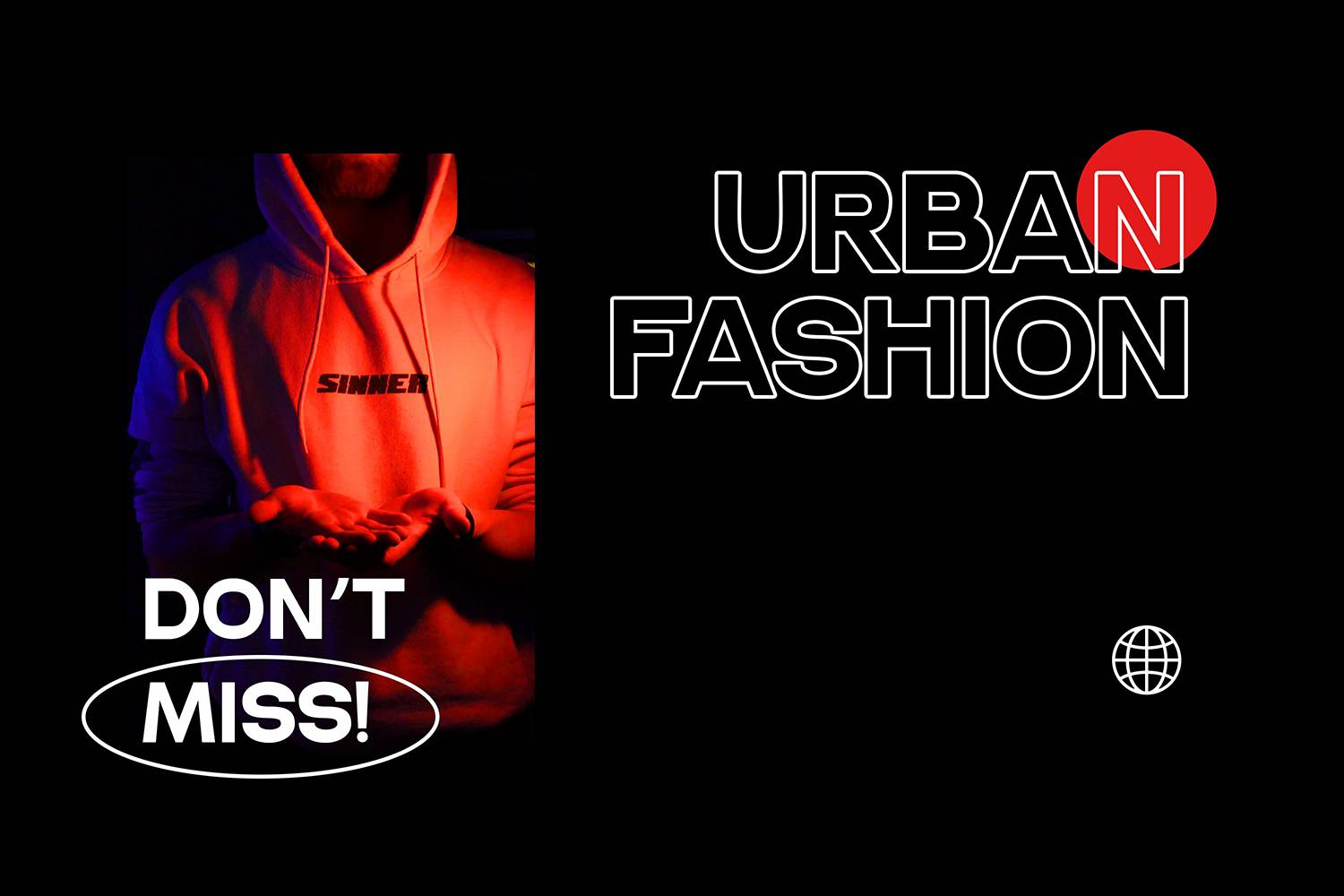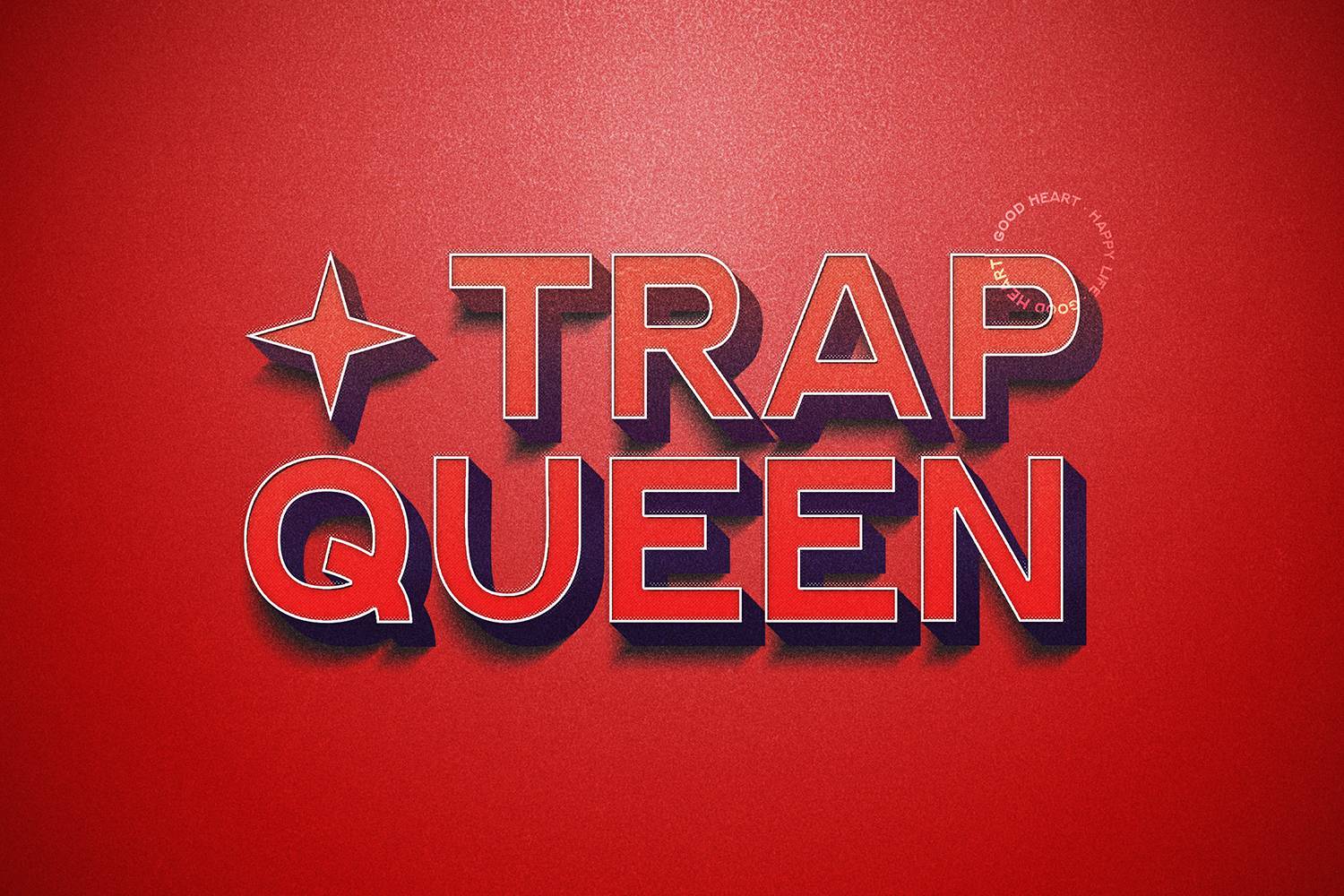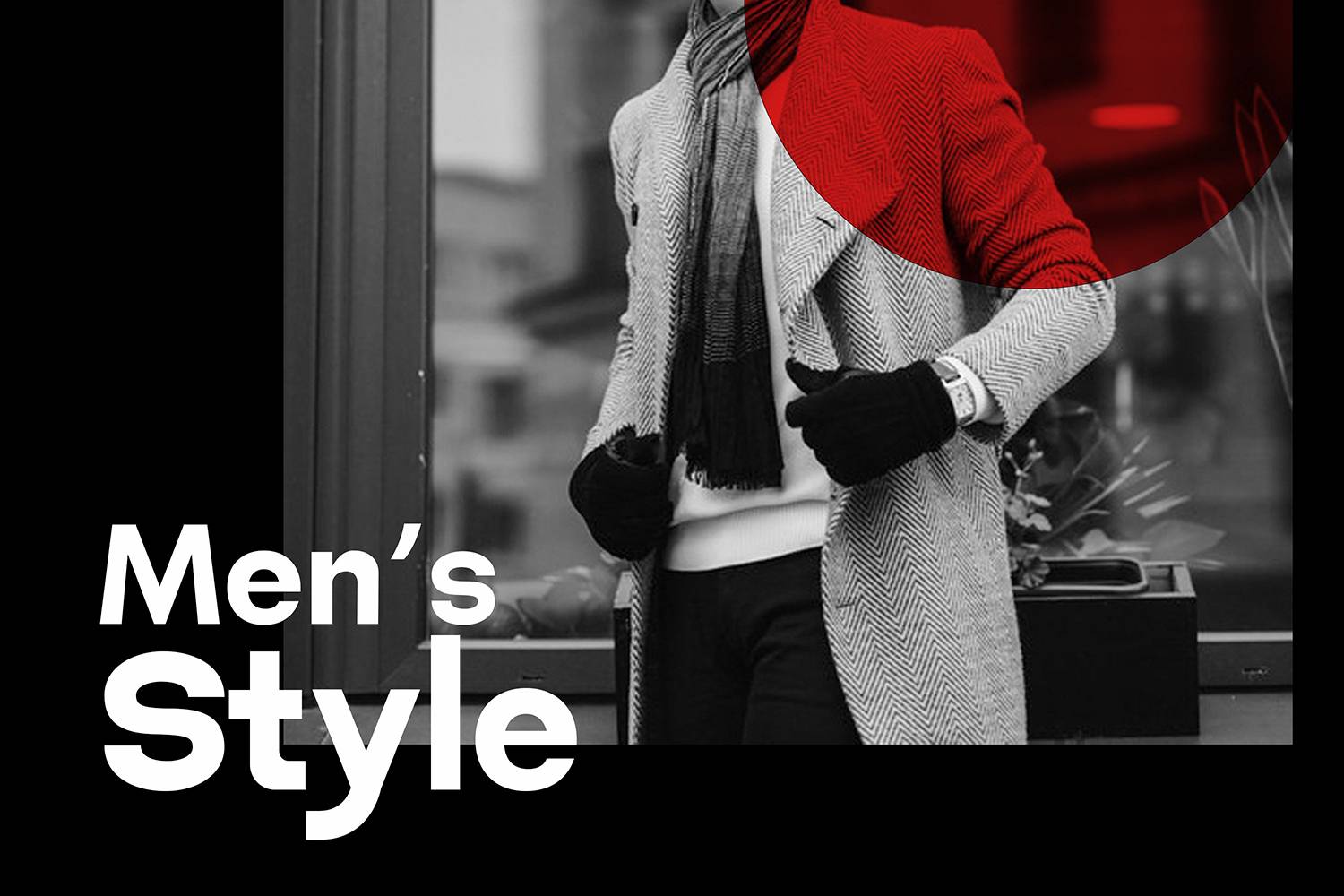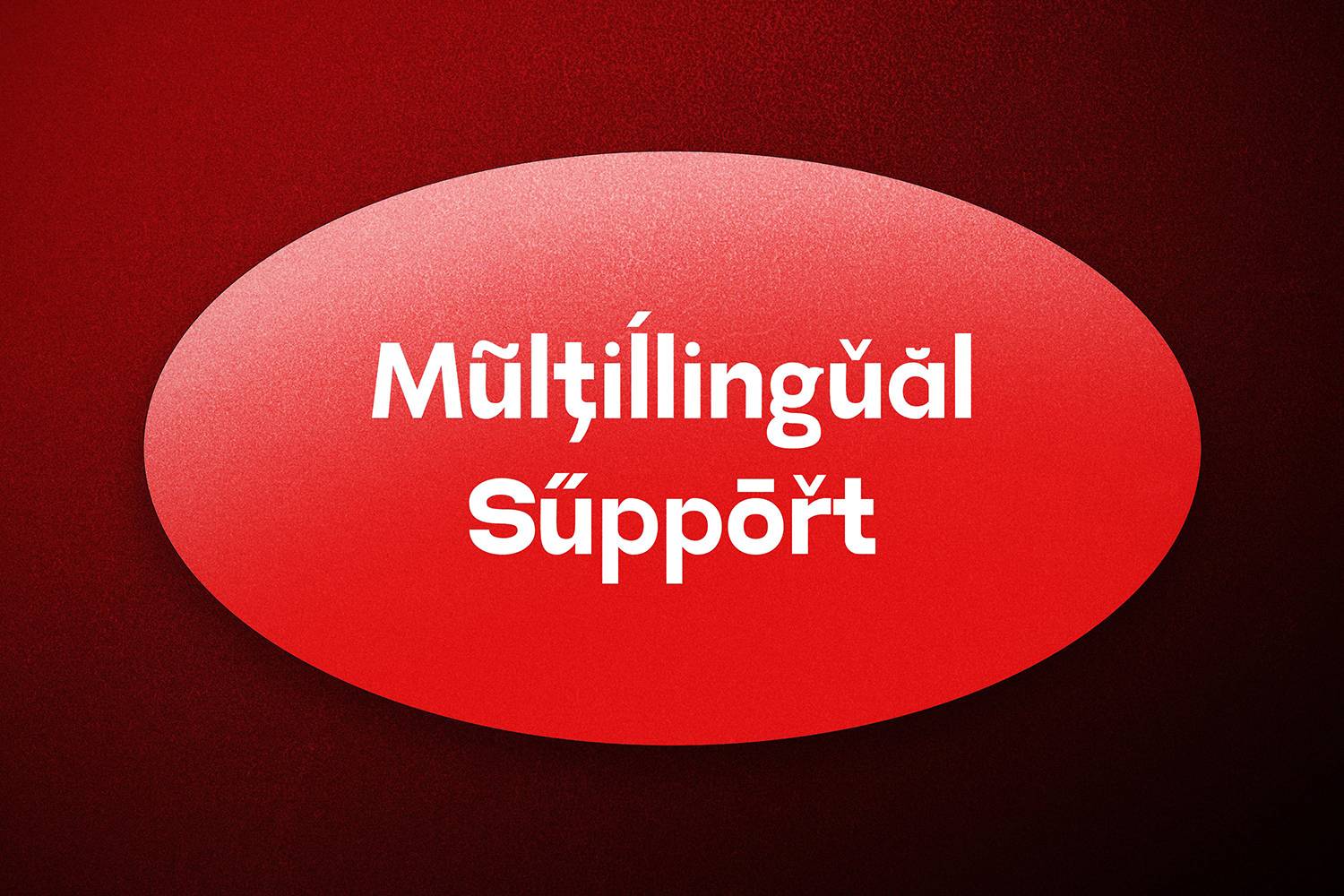
Minerva is a bold, geometric sans serif font characterized by its strong, clean lines and balanced proportions. Its wide letterforms and high x-height create a modern, confident appearance that works well for impactful headlines, branding, and editorial design. With its straightforward and sturdy style, Minerva conveys clarity and professionalism while maintaining a contemporary edge.
Minerva Font
About Minerva Font
| Font family | Minerva Font |